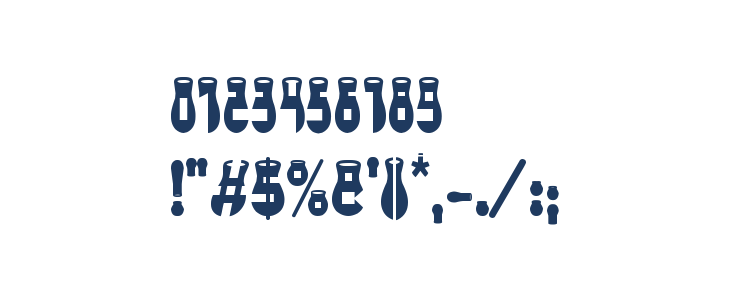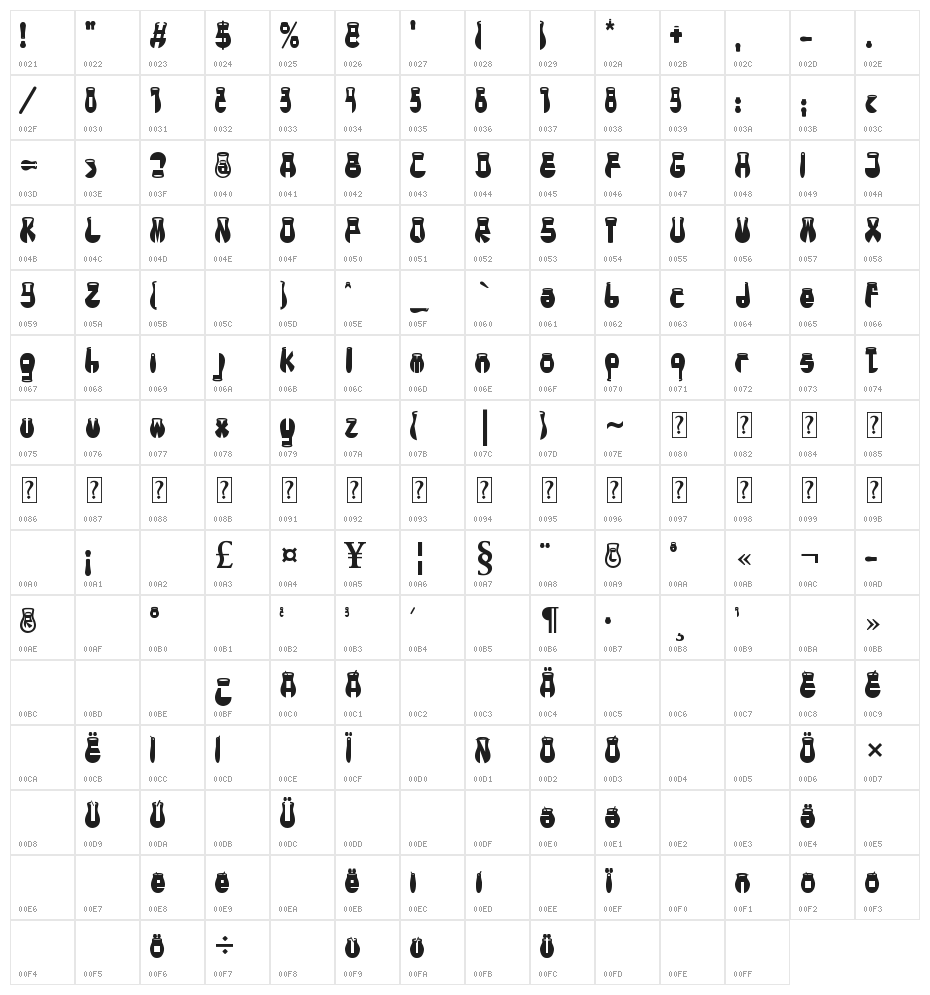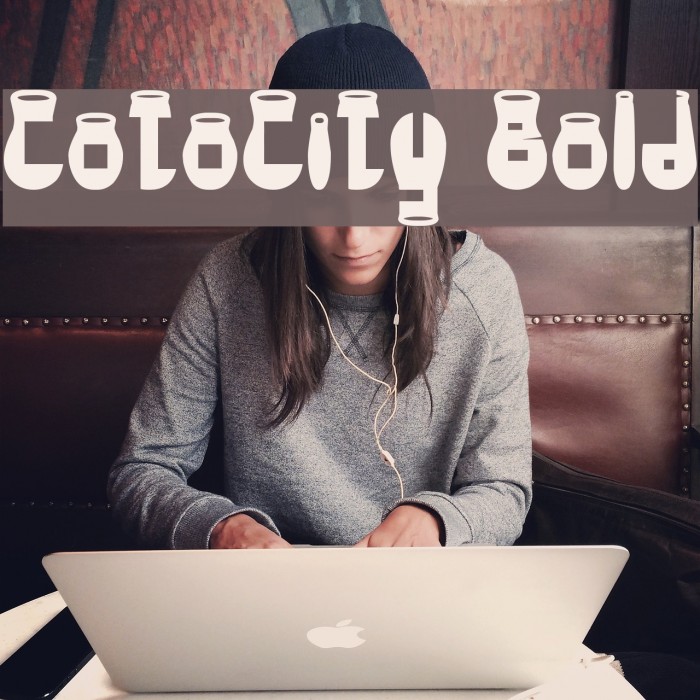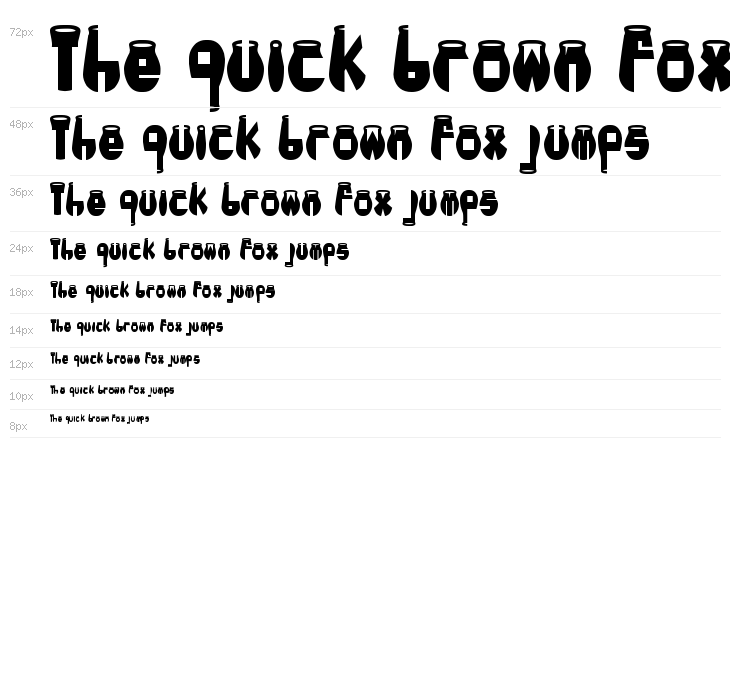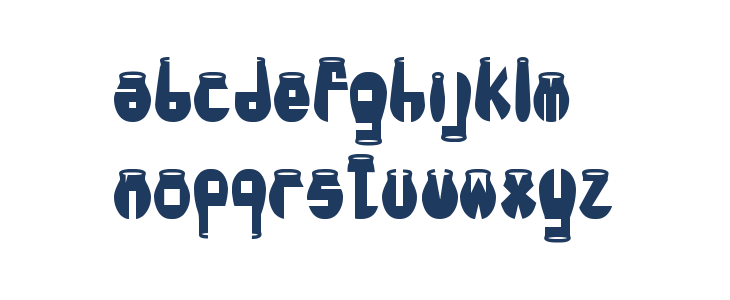
CotoCity Bold Font
CotoCity Bold Description
This font features a bold and striking design with a unique, futuristic aesthetic. The characters are heavily stylized with thick, rounded forms and geometric shapes, giving it a distinct and modern appearance. The uppercase letters are particularly eye-catching, with a strong presence and a sense of movement. The lowercase letters maintain the same boldness, ensuring consistency throughout the typeface. Numbers and special characters are equally bold and maintain the geometric theme, making them stand out. This font is perfect for projects that require a strong visual impact and a contemporary feel.